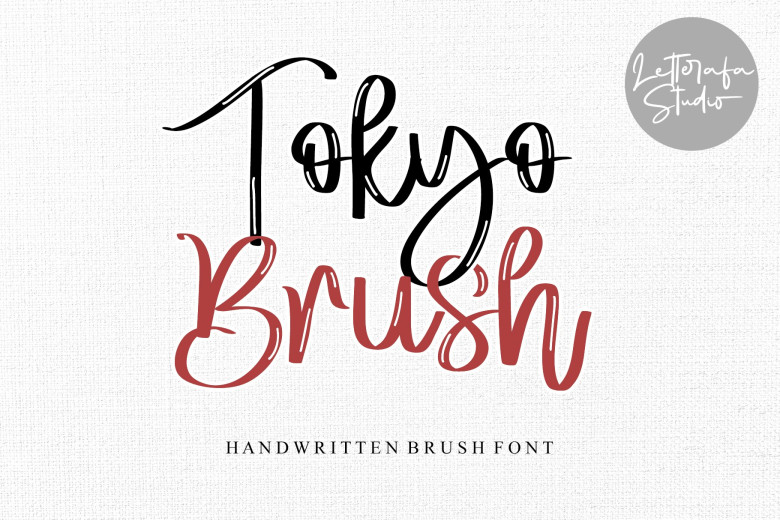
Tokyo Brush Font
Tokyo Brush is a natural handwritten brush font. That font is perfect for ; logos, greeting cards, a package design, a brand identity, craft design, any DIY project, book title, wedding invitation, packaging, another christmas project and more.
Tokyo Brush Script Font